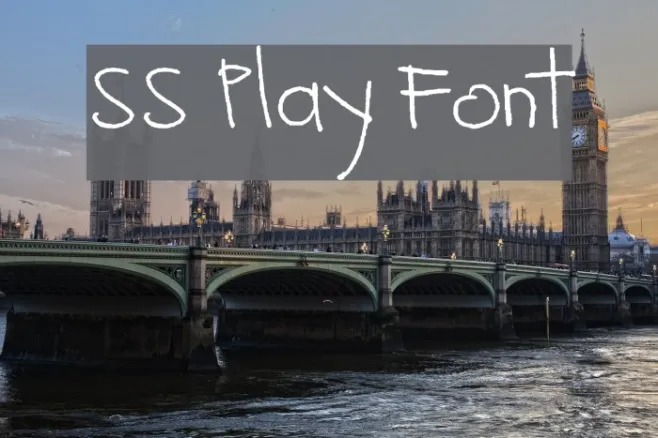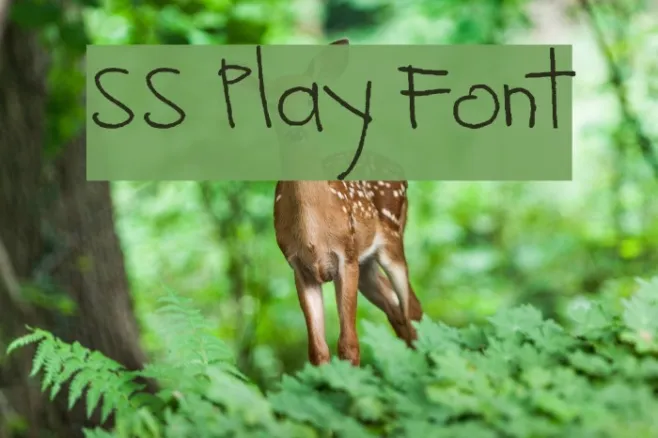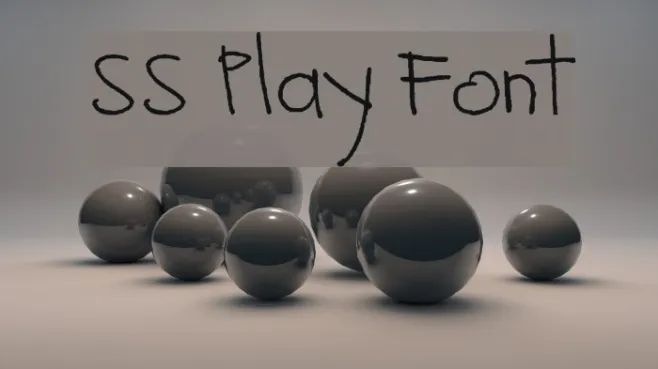
SS Play Font Font
SS Play Font Description
This playful and informal font features a handwritten style that exudes a casual and friendly vibe. The letters are slightly irregular, mimicking the natural flow of handwriting, which adds a personal touch to any text. The strokes are consistent in width, providing a uniform appearance while maintaining a relaxed feel. The characters are well-spaced, ensuring readability even in longer texts. This font includes a full set of uppercase and lowercase letters, numbers, and a variety of special characters, making it versatile for different uses.
| Proposed Projects | Ideal for children's books, greeting cards, personal blogs, and informal branding projects. |